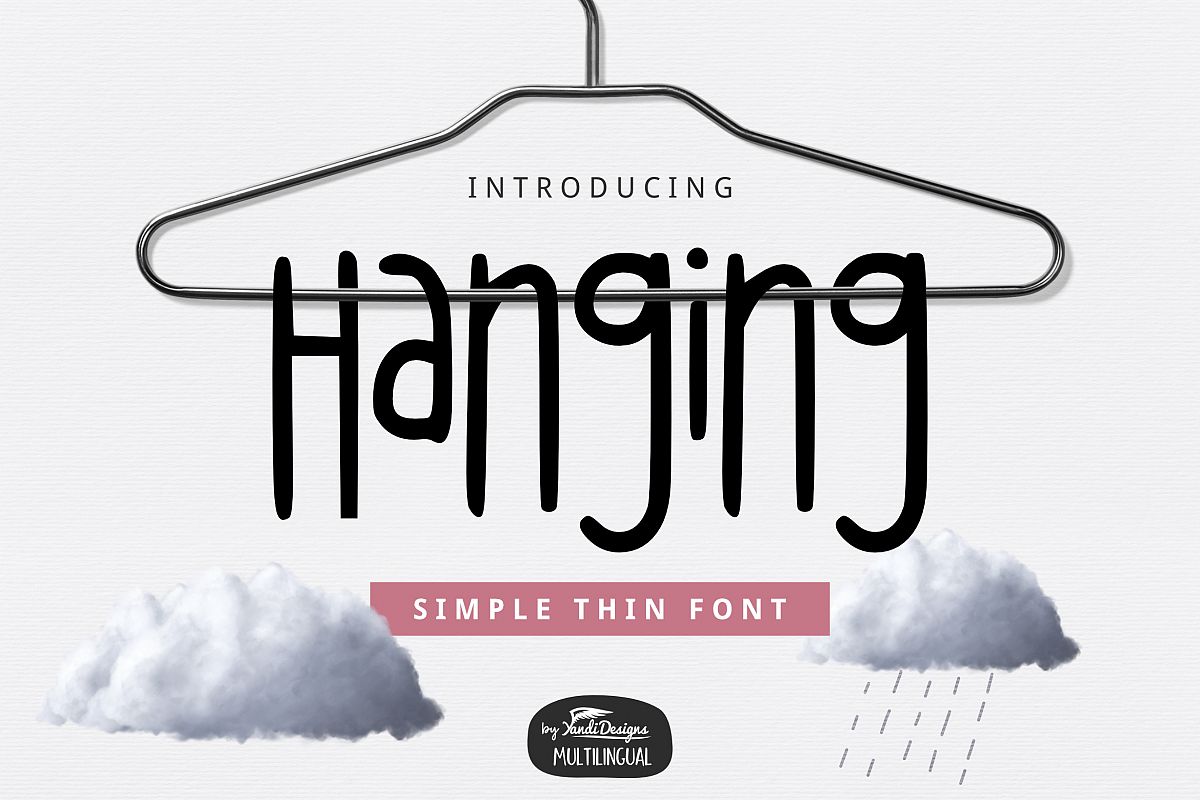
Hanging Thin Font
Hanging Regular
Hanging Font
Simple thin handwritten font , suitable for many project, signature , quotes, logo , doodle, heading , title etc.
Basic Latin + Multilingual
Support : Minimal English , French, Spanish, Germany, Italian, Indonesian and Malay.